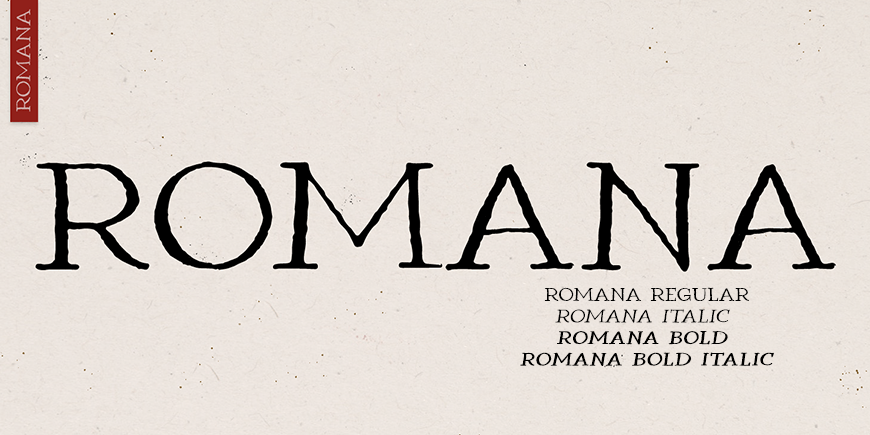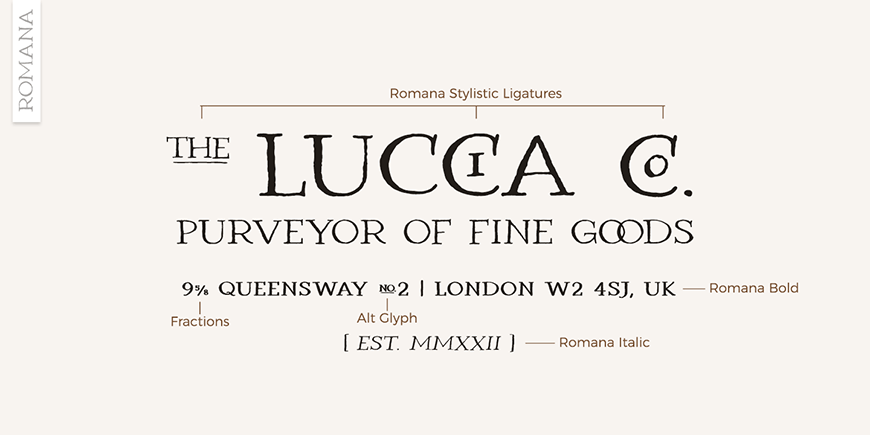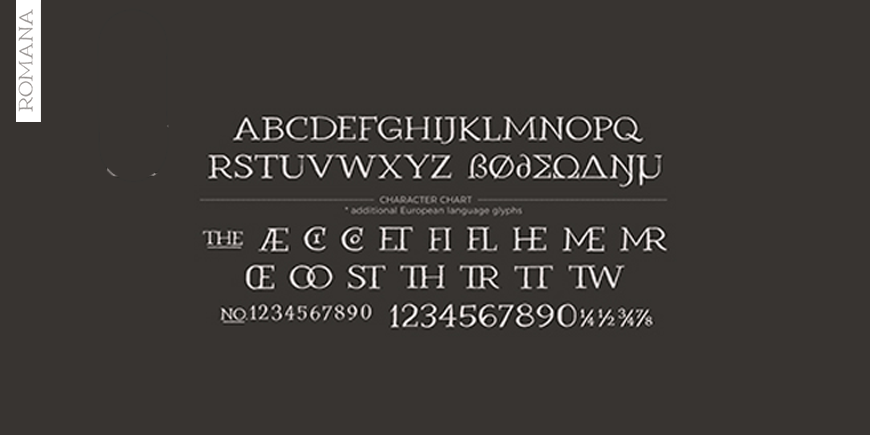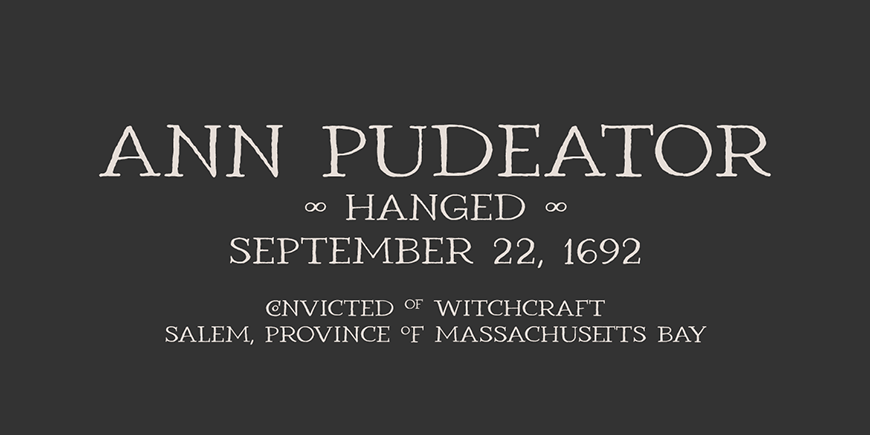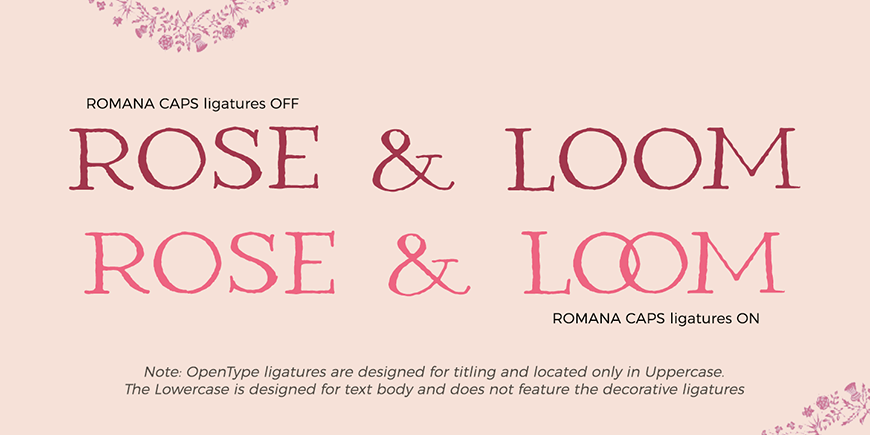
Romana
ROMANA was inspired by carved Roman inscriptions. It was hand drawn with a dip pen and ink onto paper and carefully converted into digital form. The font maintains a handcrafted feel with irregularities and quirks including eye catching ligatures & bonus glyphs, Opentype features, fractions and ordinals. It's simplicity makes it a stable choice to pair with more decorative calligraphy fonts with a classic flair. Perfect for logos & branding, signage and stationery.